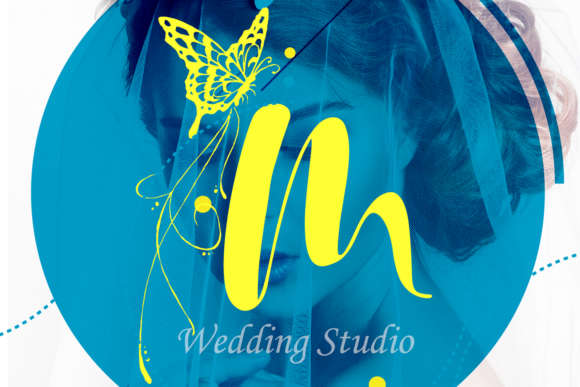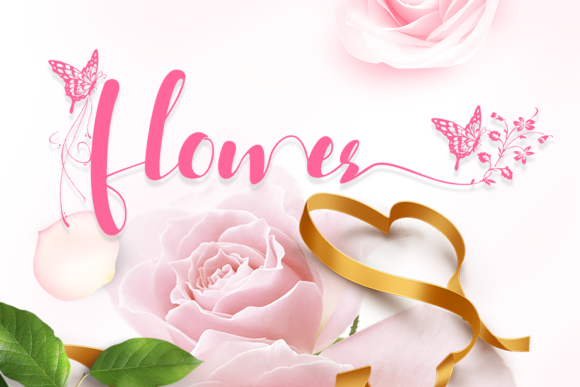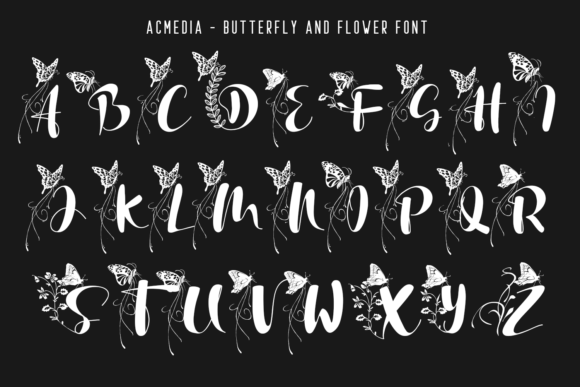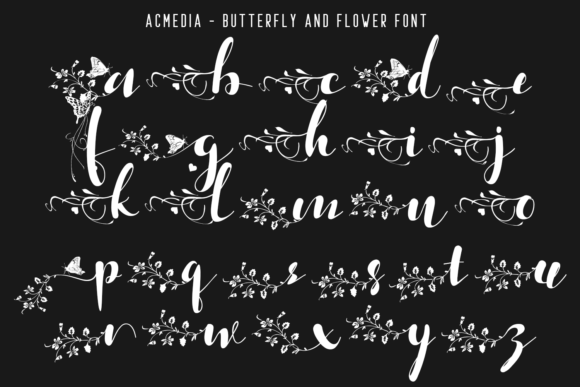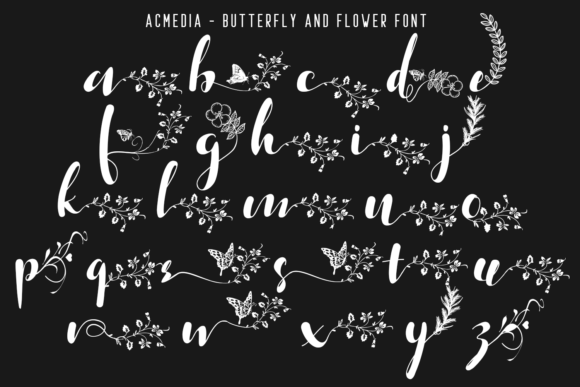
The Acmedia Font: A Designer’s New Best Friend
I’ll never forget the moment I stumbled upon the Acmedia font. I was working on a project for a client who wanted a elegant, yet modern look. I had spent hours scouring the internet for the perfect font, but nothing seemed quite right. That was until I saw Acmedia – its beautiful, flowing script immediately caught my eye. I knew right then and there that I had found the one.
A Personal Review: What I Love About Acmedia
So, what makes Acmedia so special? Here are a few things that I absolutely love:
• ✨ Exquisite handwritten feel: Acmedia has a beautiful, organic feel that makes it perfect for projects where you want to add a personal touch.
• ✅ Classy calligraphic influences: The font’s calligraphic roots give it a sophisticated, elegant feel that’s perfect for high-end projects.
• ✅ Contemporary and fresh: Despite its classic influences, Acmedia feels modern and fresh – it’s perfect for projects where you want to stand out from the crowd.
The Not-So-Perfect: A Few Quirks and Limitations
Of course, no font is perfect, and Acmedia is no exception. Here are a few things to keep in mind:
• 🤔 Limited use in small sizes: Like many script fonts, Acmedia can be a bit tricky to read in small sizes. It’s best used in larger sizes where its beauty can shine.
The Story Behind Acmedia: A Designer’s Inspiration
So, where did Acmedia come from? According to its creators, Acmedia was inspired by the beauty of handwritten calligraphy. The designers wanted to create a font that captured the elegance and sophistication of traditional calligraphy, while still feeling modern and fresh.
Font Name Acmedia Font
Author 177Studio
Q: Is Acmedia suitable for body text?
A: While Acmedia is beautiful, it’s best used in larger sizes as a headline or accent font. For body text, you may want to choose a more traditional font.